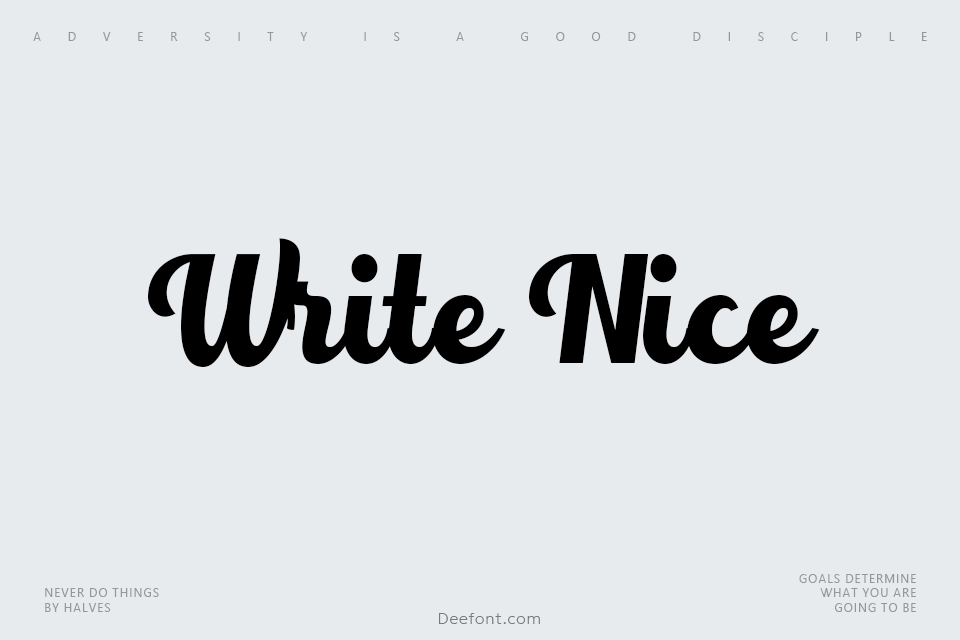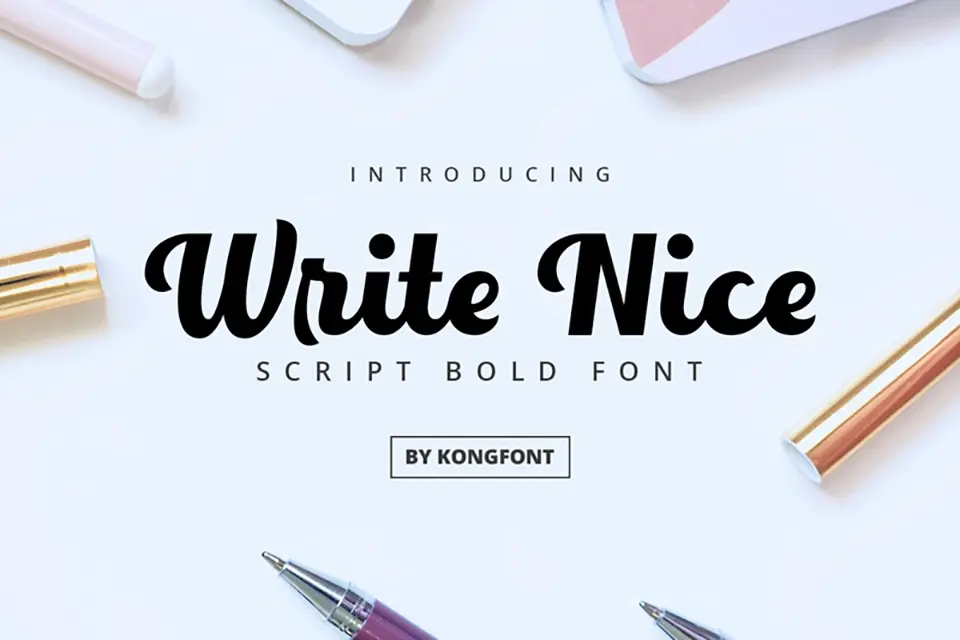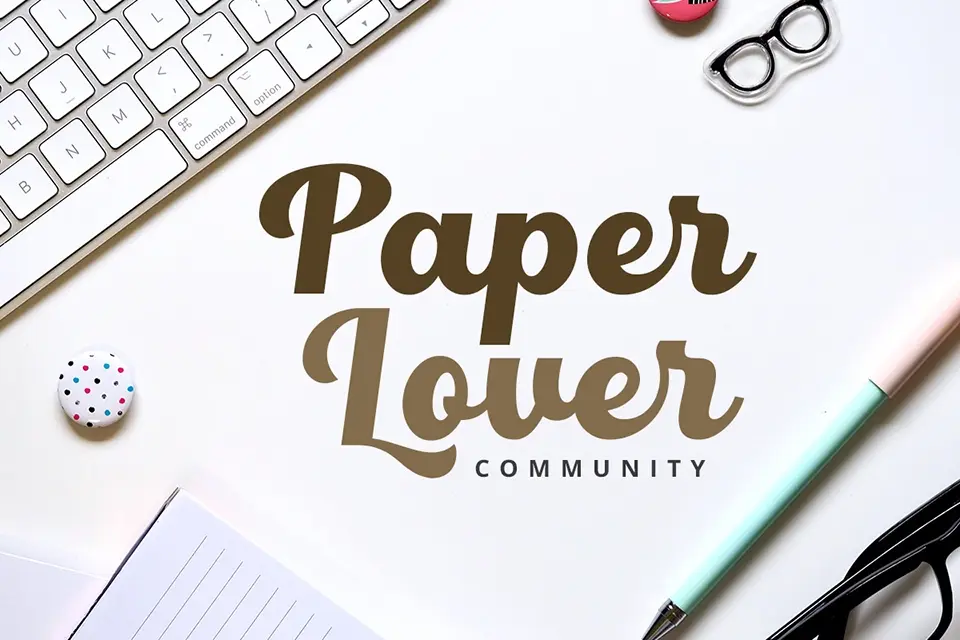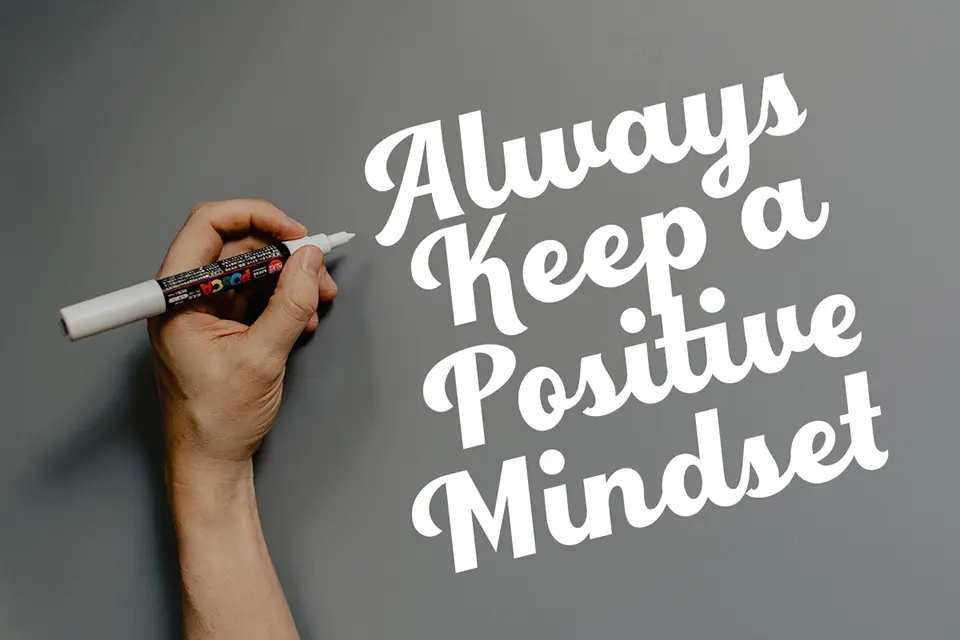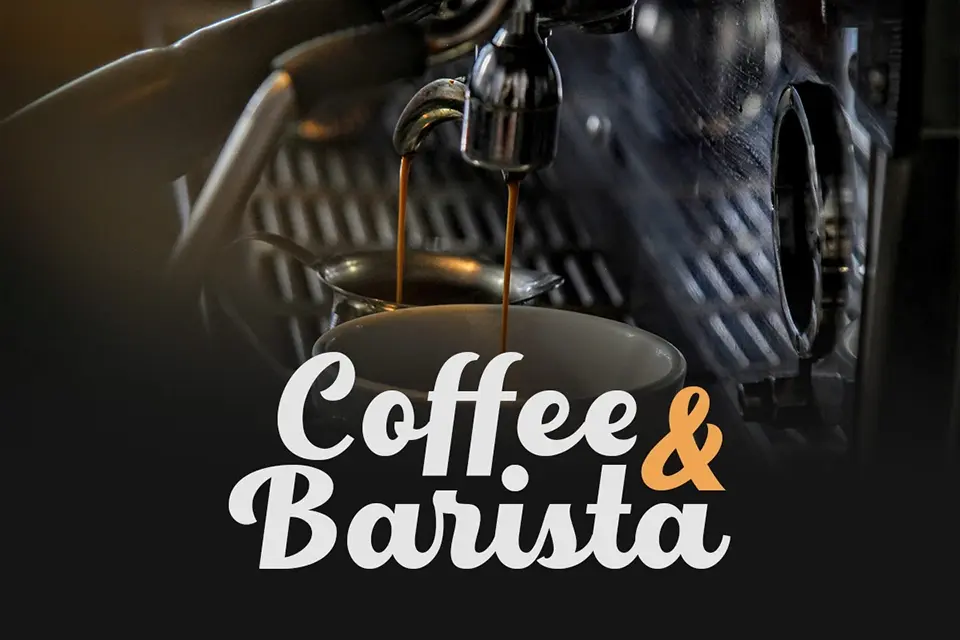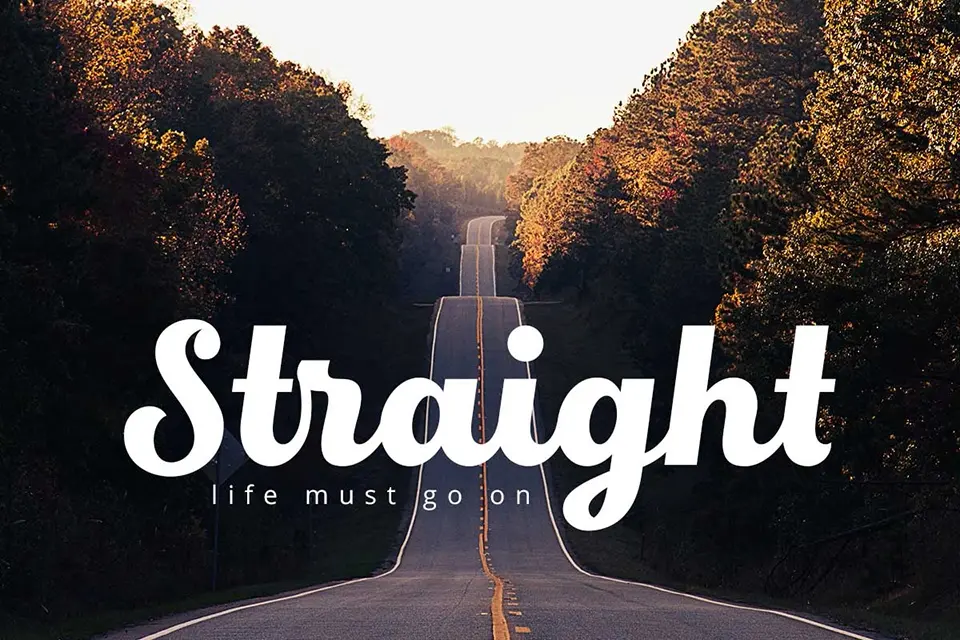
Write Nice Font
Write Nice is a stylish handwritten script font, designed to bring a personal and elegant touch to your creative projects. With its smooth strokes and natural flow, this font is ideal for invitations, branding, logos, and social media graphics. It’s perfect for anyone looking to add a charming, hand-crafted feel to their designs. Note that Write Nice is free for personal use, with commercial licenses available for purchase.